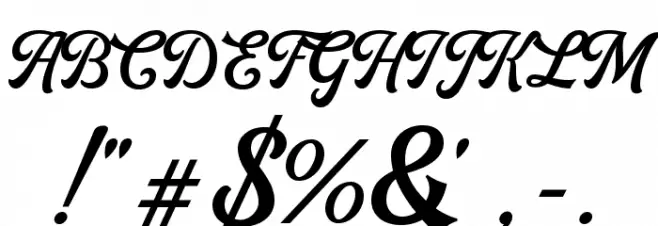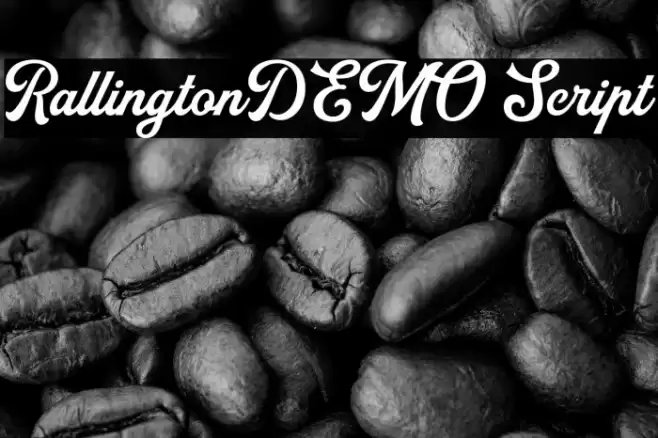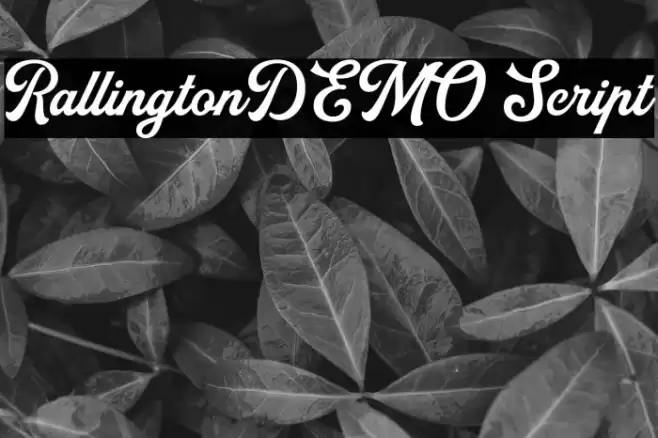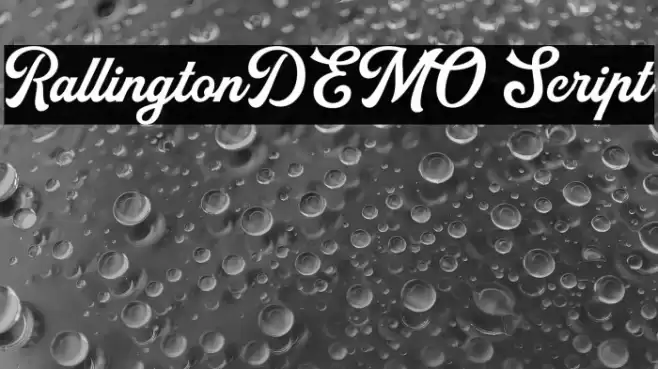
RallingtonDEMO Script Font
RallingtonDEMO Script Description
This font features a flowing, elegant script style with a classic and sophisticated appearance. The characters are interconnected, creating a seamless and fluid look that is both decorative and legible. The uppercase letters are ornate, with intricate loops and swirls, while the lowercase letters maintain a consistent, graceful flow. The numbers and special characters complement the overall design, adding to its versatility. The font's bold weight and high contrast between thick and thin strokes enhance its readability and visual impact, making it suitable for various design applications.
| Overall Style | Classic |
| Use Case | Logos, Headlines, Decorative text |
| Proposed Projects | Ideal for wedding invitations, elegant branding, greeting cards, and decorative signage. |